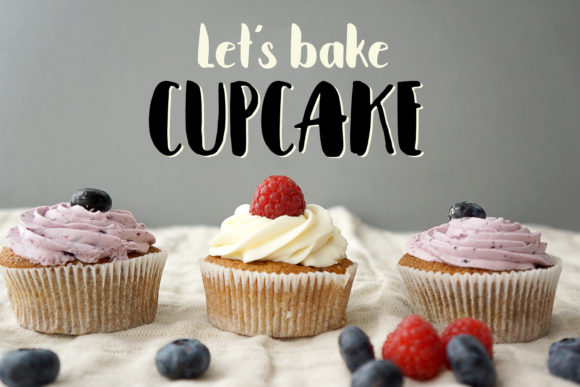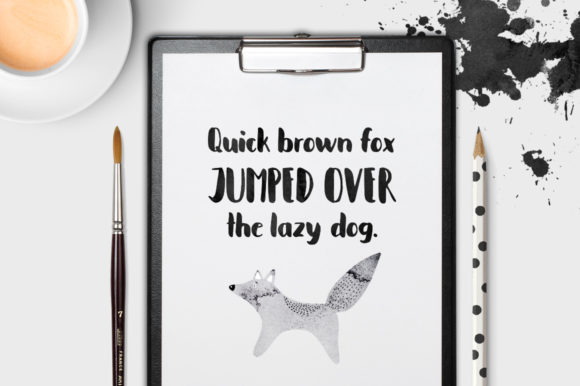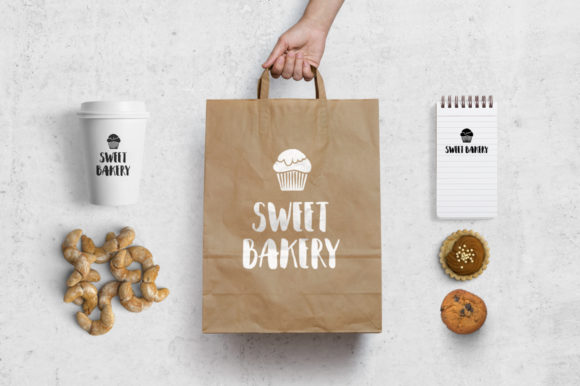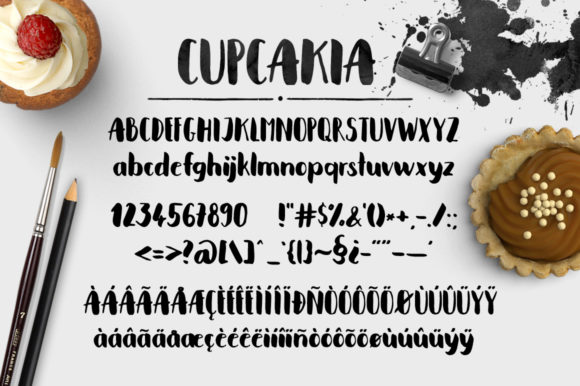
Cupcakia Font: Adding a Touch of Whimsy to Your Designs
Are you looking for a font that can add a playful and artistic feel to your designs? Look no further than Cupcakia Font! This funny handwritten sans-serif brush typeface is perfect for designers and crafters who want to bring a touch of whimsy to their projects. In this article, we’ll take a closer look at Cupcakia Font, its features, and how you can use it to elevate your designs.
What is Cupcakia Font?
Cupcakia Font is a unique and quirky handwritten font that is designed to give your designs a personal and artistic touch. With its sans-serif brush typeface, Cupcakia Font is perfect for creating playful and eye-catching designs that are sure to stand out. Whether you’re working on a logo, a poster, or a digital project, Cupcakia Font is a great choice for adding a touch of personality to your work.
Key Features of Cupcakia Font
So, what makes Cupcakia Font so special? Here are some of its key features:
- Handwritten feel: Cupcakia Font has a distinctly handwritten feel that gives it a personal and artistic touch.
- Fun and playful: This font is perfect for designs that require a playful and whimsical touch.
- Sans-serif brush typeface: The sans-serif brush typeface of Cupcakia Font gives it a unique and modern look.
- Easy to read: Despite its playful feel, Cupcakia Font is easy to read and can be used for both headings and body text.
How to Use Cupcakia Font in Your Designs
Now that we’ve covered the features of Cupcakia Font, let’s talk about how you can use it in your designs. Here are some ideas to get you started:
- Logos and branding: Cupcakia Font is perfect for creating playful and eye-catching logos and branding materials.
- Posters and flyers: Add a touch of whimsy to your posters and flyers with Cupcakia Font.
- Digital projects: Cupcakia Font is great for digital projects such as social media graphics, blog posts, and website headers.
- Crafting and DIY projects: If you’re a crafter or DIY enthusiast, Cupcakia Font is a great choice for adding a personal touch to your projects.
Tips for Using Cupcakia Font Effectively
Here are some tips for using Cupcakia Font effectively in your designs:
- Use it sparingly: While Cupcakia Font is playful and fun, it can be overwhelming if used too much. Use it sparingly to add a touch of whimsy to your designs.
- Pair it with other fonts: Cupcakia Font pairs well with other fonts, such as serif fonts or script fonts. Experiment with different pairings to find the one that works best for your design.
- Experiment with colors: Cupcakia Font looks great in a variety of colors, from bright and bold to pastel and soft. Experiment with different colors to find the one that works best for your design.
Cupcakia Font is a unique and playful handwritten sans-serif brush typeface that can add a touch of whimsy to any design. With its key features, such as a handwritten feel, fun and playful style, and easy readability, Cupcakia Font is perfect for designers and crafters who want to bring a personal and artistic touch to their projects. By following the tips outlined in this article, you can use Cupcakia Font effectively in your designs and create eye-catching and playful projects that are sure to stand out.
Overall, Cupcakia Font is a great choice for designers and crafters who want to add a touch of whimsy and personality to their projects. With its unique and playful style, Cupcakia Font is sure to bring a smile to your audience’s face and make your designs stand out.